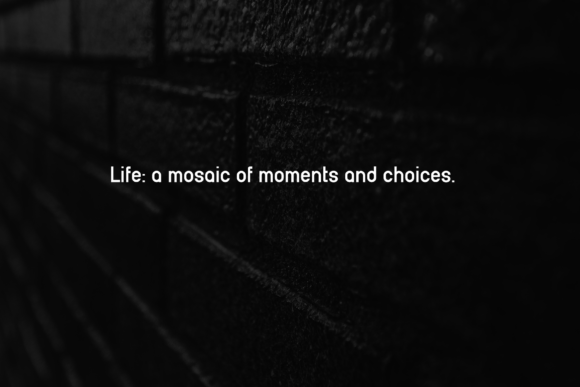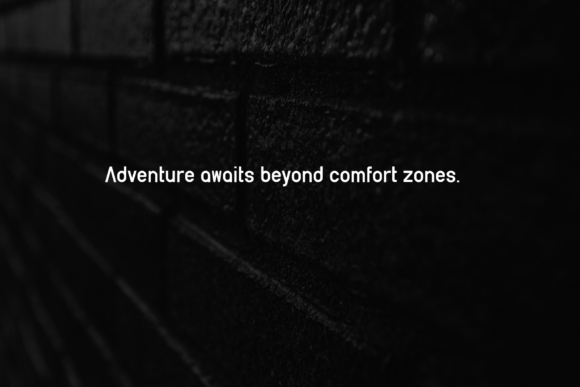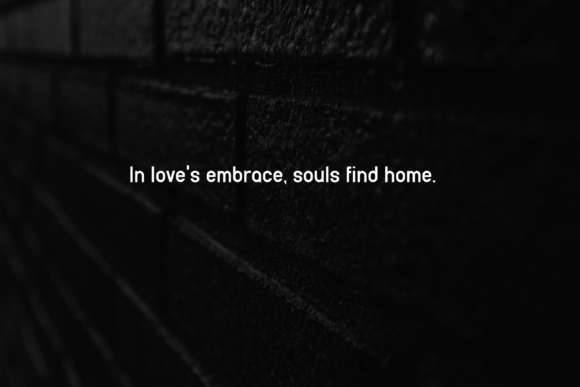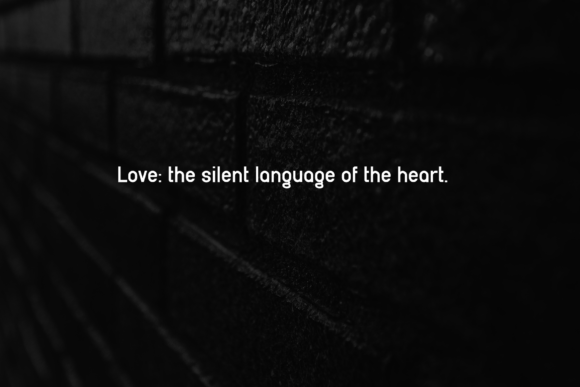
Introduction to Panorama Font
As a designer, there’s nothing quite like the thrill of embarking on a new creative project. The blank canvas, the endless possibilities, the rush of bringing a concept to life – it’s a feeling that never gets old. And for many of us, the right font can be the spark that ignites the entire process. That’s why we’re excited to introduce you to the Panorama Font, a stunning Modern Sans Serif font that’s sure to elevate your designs to new heights.
The Panorama Font is more than just a font – it’s a design resource that’s as versatile as it is beautiful. With its high-quality lines and transparent background, it’s the perfect choice for anything from branding and logo design to urban design and modern advertising.
Whether you’re working on a free download or a paid project, the Panorama Font is a valuable addition to any designer’s toolkit. Its clean, modern aesthetic makes it suitable for a wide range of creative needs, from clothing and book covers to special events and adventures. So why settle for an ordinary font when you can have a Panorama Font that truly sets your designs apart?
Key Features of Panorama Font
- High-quality design: Panorama Font offers a unique and visually appealing design, perfect for creative projects.
- Large character set: Panorama Font includes a wide range of characters, including Latin, Cyrillic, and Greek alphabets, as well as punctuation and symbols.
- Perfect for creative projects: This font is ideal for use in creative projects, such as graphic design, web design, and digital art.
Honest Review: Panorama Font
I recently came across the Panorama Font and was excited to give it a try for my current design project. As a designer, I’m always on the lookout for high-quality design resources to elevate my work.
One of the things that immediately caught my attention was the Panorama Font’s sleek and modern design. The font features clean lines and a minimalist aesthetic that makes it perfect for a variety of creative projects. I found it to be especially useful for designing logos, branding materials, and digital interfaces.
Here are some things that work well with the Panorama Font:
- ✨ High-quality design that’s perfect for modern projects
- ✨ Clean and minimalist aesthetic that’s easy to work with
- ⚠️ Limited font weight options, which may not be suitable for all design needs
- ⚠️ No transparent background option available, which may limit its use in certain design scenarios
Overall, I’m impressed with the Panorama Font and would definitely consider using it again for future design projects. While it has its limitations, its high-quality design and free download option make it a great design resource for creatives.
Tips for Getting the Most Out of Panorama Font
Use the Panorama Font in combination with other design elements, such as images and shapes, to create a visually appealing design. Experiment with different font sizes and colors to get the most out of the font. The Panorama Font is a great resource for creative projects, including business cards, brochures, and posters.
Common Use Cases for Panorama Font
The Panorama Font is commonly used in creative projects, such as business cards, brochures, and posters. It is also used in digital designs, such as website headers and social media graphics. The font’s high-quality and transparent background make it a great choice for designs that require a professional look.